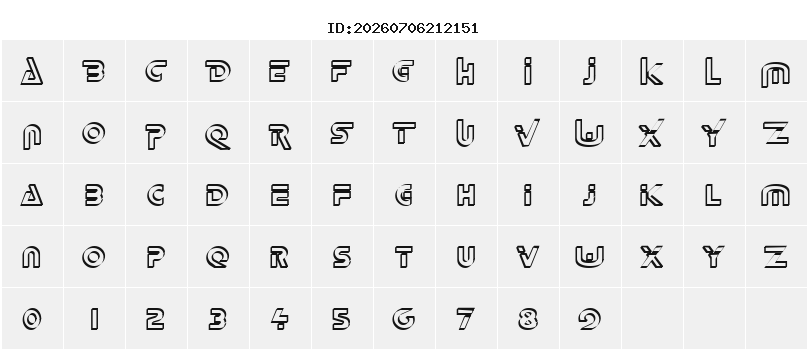
Delta Overlap Preview
• Font Name: Delta Overlap
• Full Font Name: Delta Overlap Regular
About Delta Overlap.ttf
Delta Overlap.ttf is a modern, elegant sans-serif font designed for ultimate readability and visual harmony. Perfect for branding, headlines, web design, and print materials.